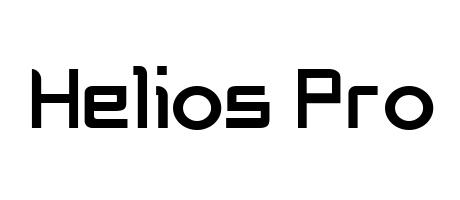
Helios
Helios Pro: A bold, sans-serif typeface with a geometric, almost futuristic feel. Its clean lines and strong letterforms project a sense of professionalism and modernity. The slightly rounded corners of some letters soften the starkness of the geometry, lending it a touch of approachability while maintaining its impactful presence.